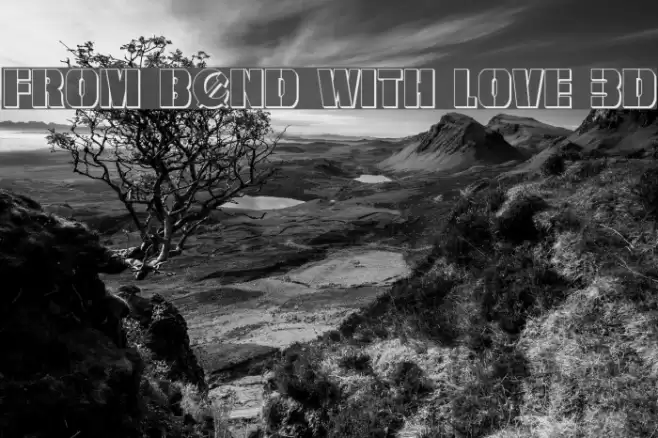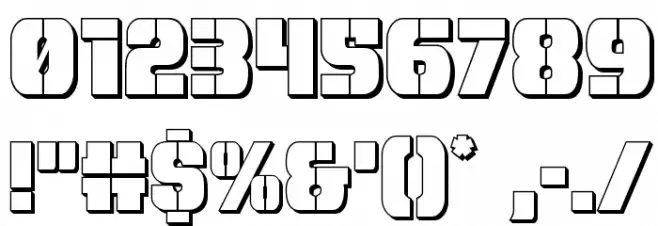
From BOND With Love 3D Font
From BOND With Love 3D Description
This font features a bold, three-dimensional design with a strong, impactful presence. Each character is outlined, giving it a distinct, shadowed effect that enhances its visual depth. The uppercase letters are uniform in height, while the numbers and special characters maintain the same bold, outlined style. The font's geometric structure and blocky appearance make it ideal for attention-grabbing designs. Its unique style is both modern and slightly retro, reminiscent of classic 3D lettering used in vintage posters and signage.
A bold, 3D outlined font with a strong, geometric design from Uncategorized fonts.
- Proposed Projects: Ideal for posters, headlines, logos, and any design requiring a bold, eye-catching typeface.